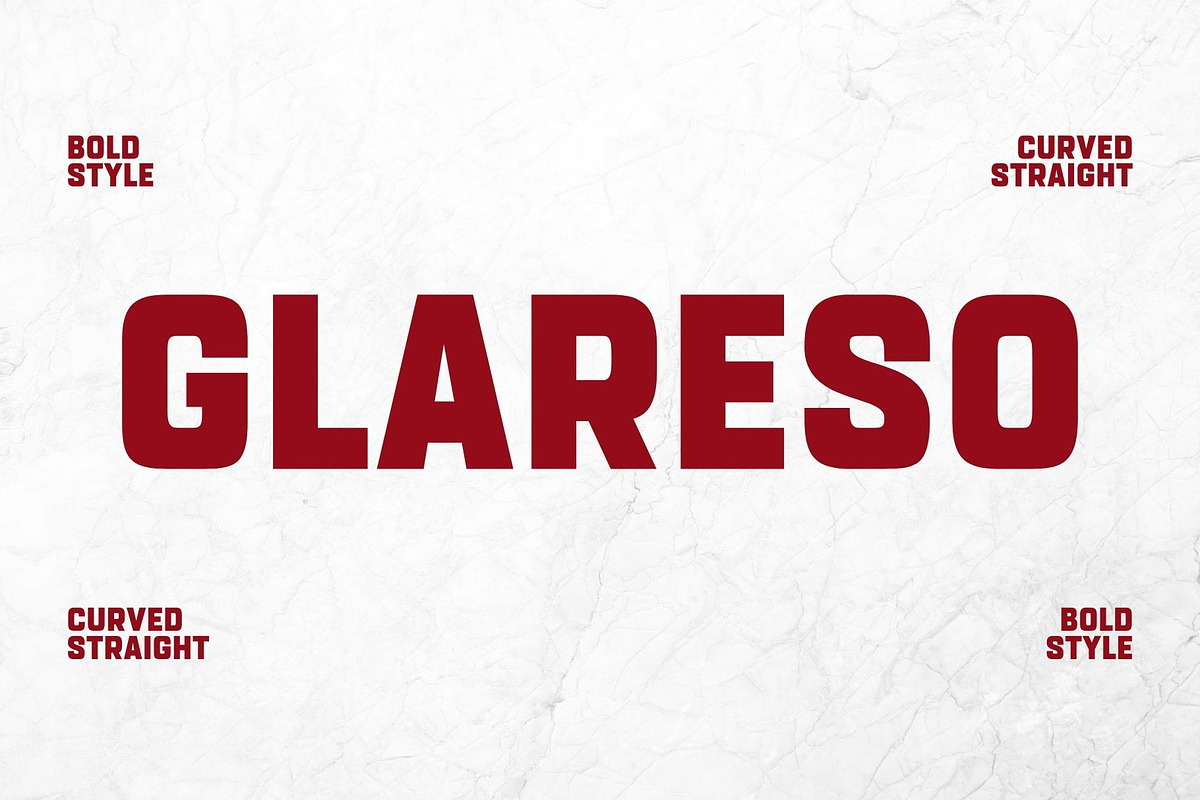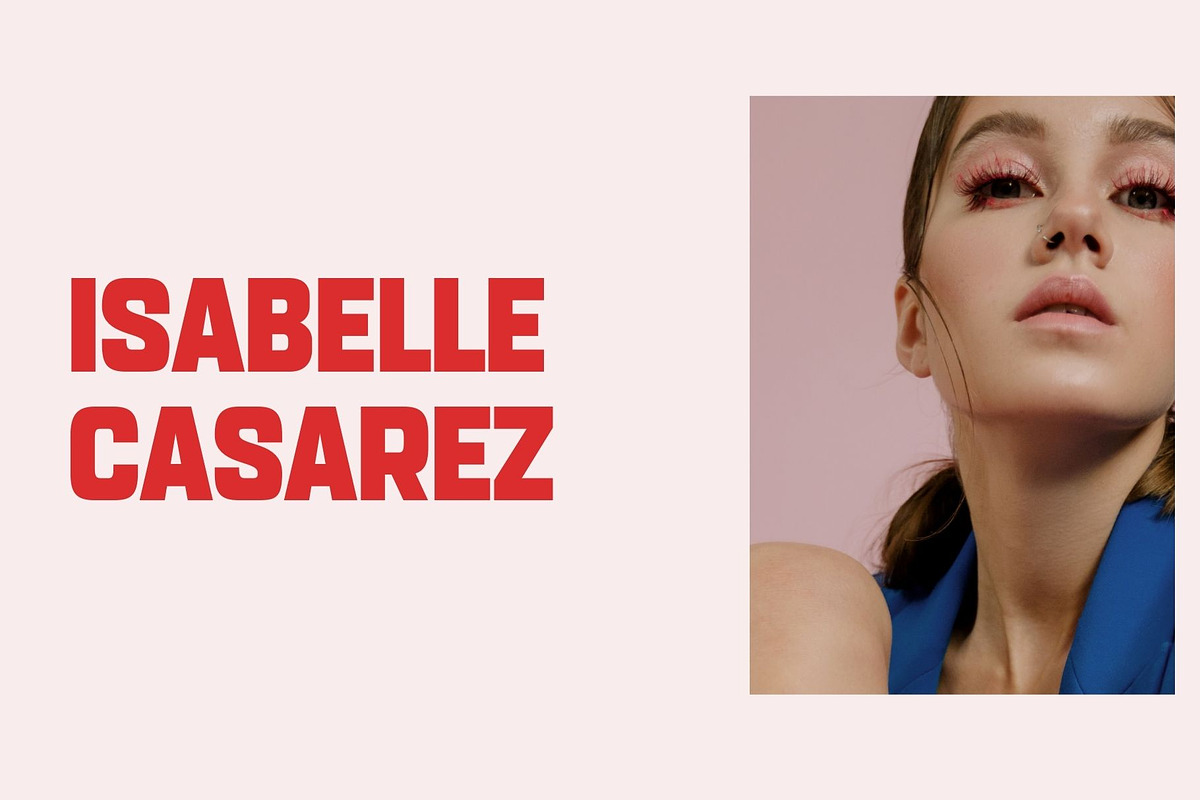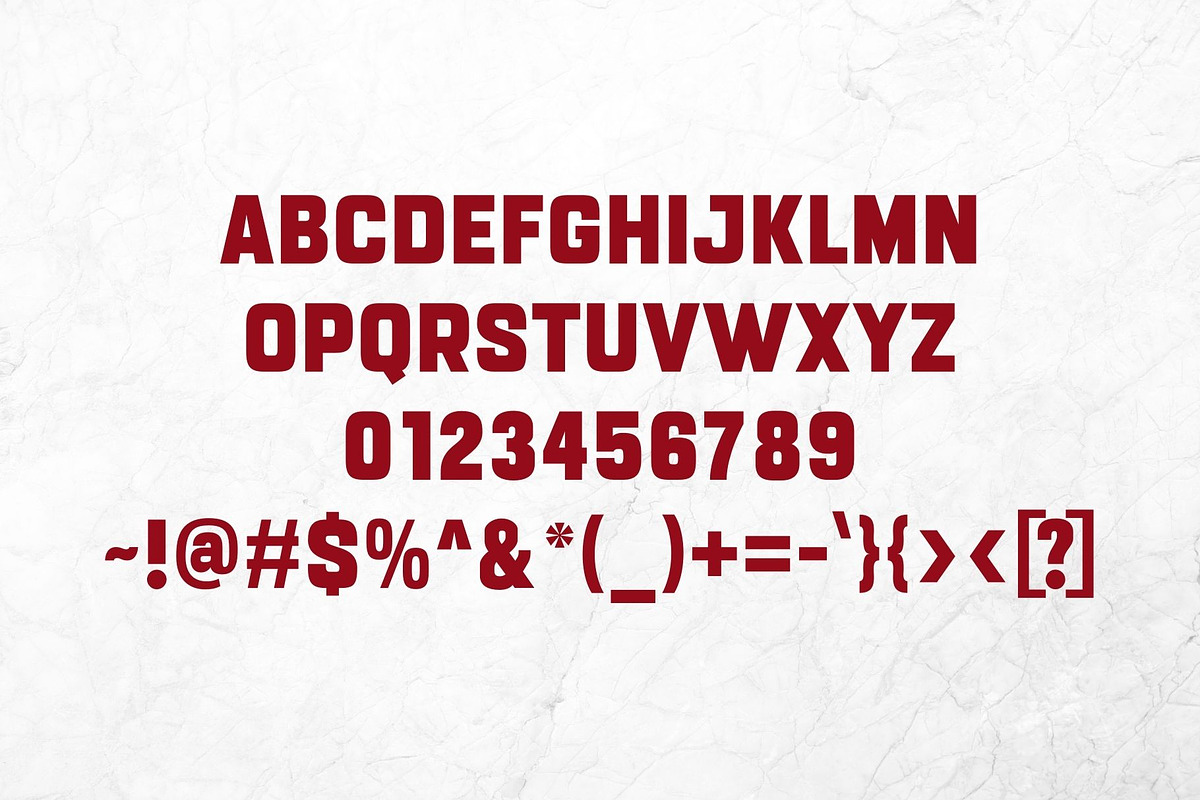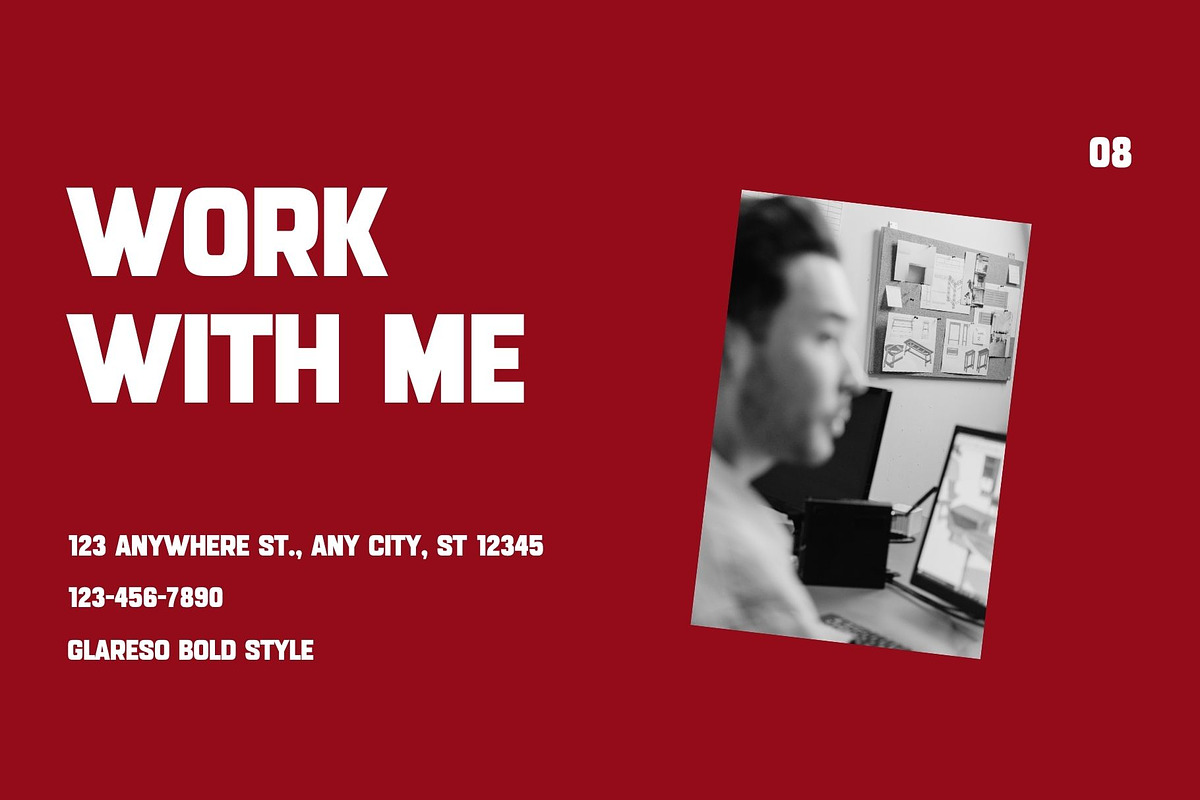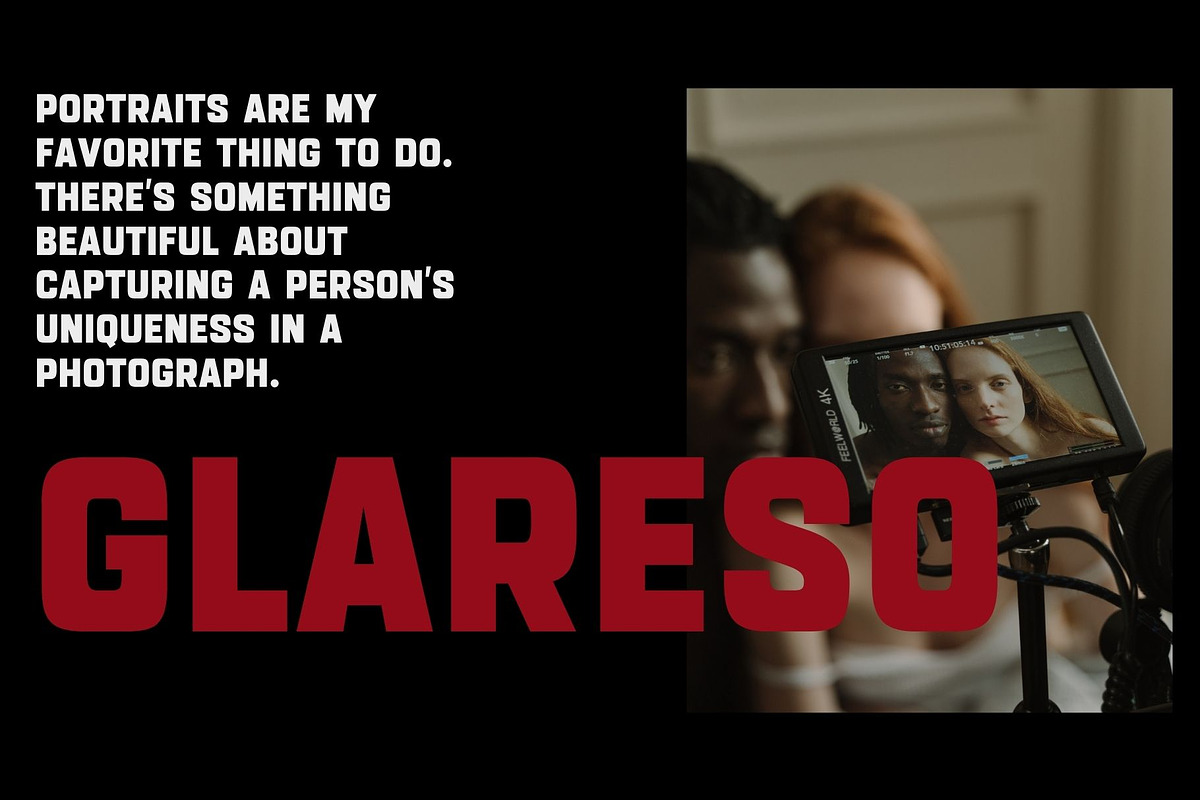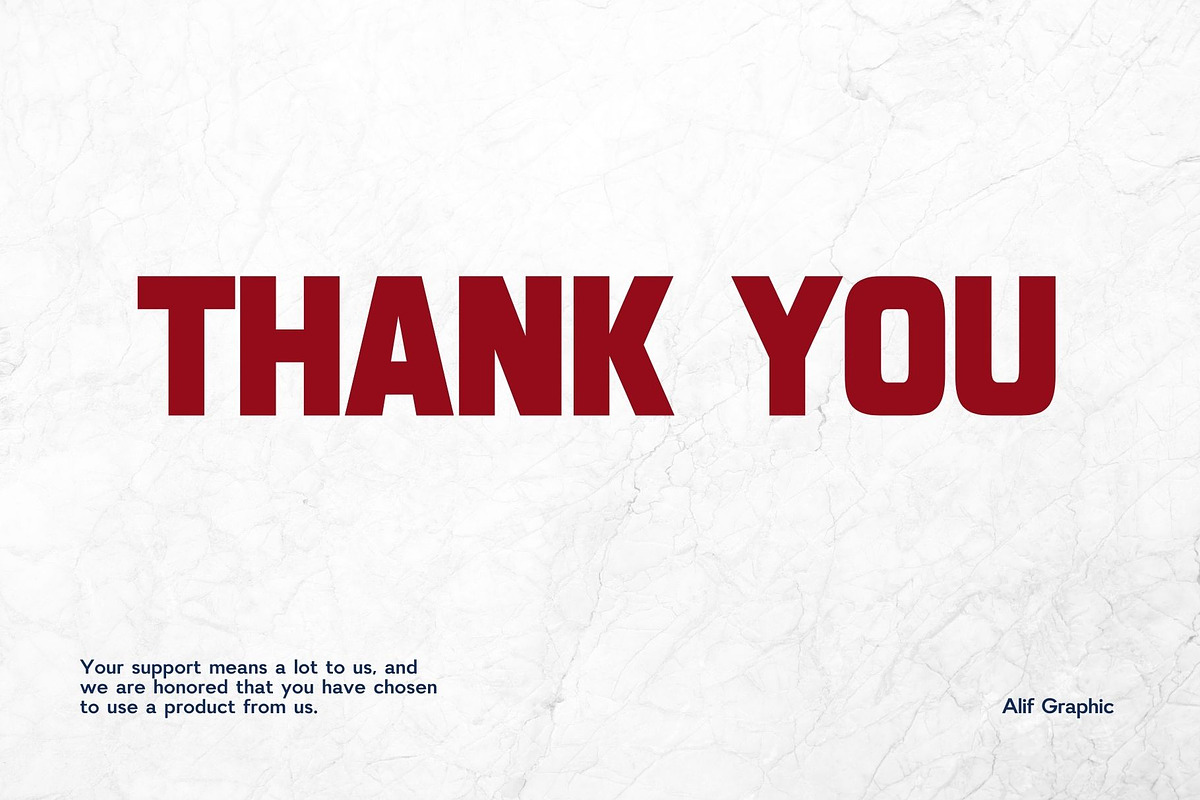
Glareso - Modern Sans Serif Typeface
Introducing 'Glareso' Font:
Meet "Glareso," a bold and modern sans serif font designed to effortlessly capture attention. With its clean lines and sleek design, Glareso injects a contemporary sophistication into your projects. Whether you're working on sleek branding or crafting impactful headlines, Glareso offers a timeless and versatile aesthetic. Elevate your designs with the confident and stylish presence of this sans serif font, making a bold statement that encapsulates the essence of modern simplicity.
Ideal for:
- Modern Designs
- Web Design Projects
- Advertising Campaigns
- Packaging Design
- Personal Branding
- Ready for Creative Expression
- Immaculately Crafted Letters